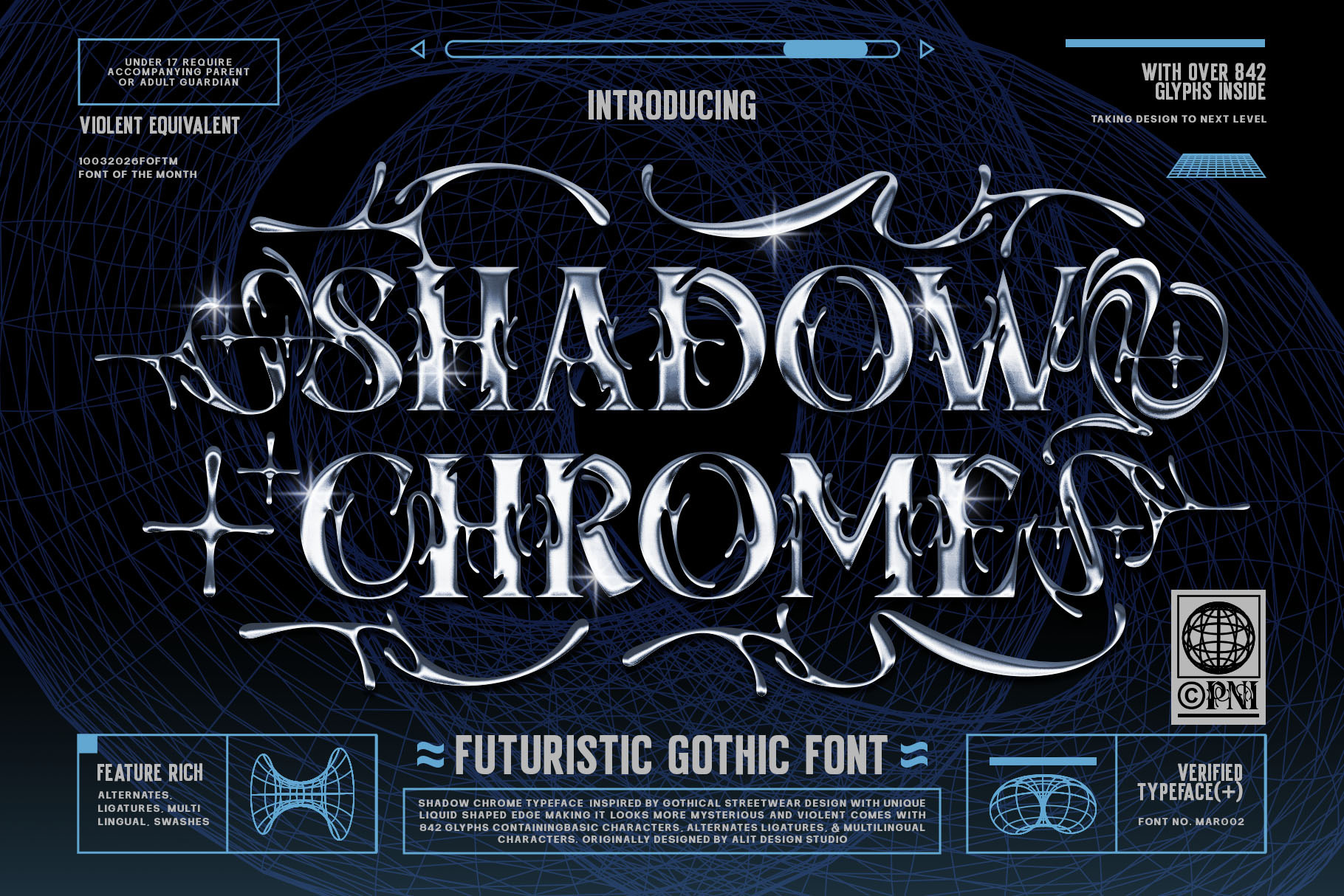
Shadow Chrome Typeface
Shadow Chrome – Futuristic Gothic Typeface
Unleash a bold fusion of tradition and tomorrow with Shadow Chrome, a high-octane "Futuristic Gothic" font designed for those who want to dominate the visual landscape. Inspired by the raw energy of gothic streetwear and modern Y2K "cyber-glitch" aesthetics, Shadow Chrome features a unique liquid-shaped edge that gives it a mysterious, sharp, and high-end metallic feel.
Every character is meticulously crafted to balance the dark elegance of blackletter with the sleek fluidity of liquid chrome. With its aggressive yet sophisticated silhouette, this typeface is the ultimate weapon for designers working on streetwear brands, music posters, futuristic gaming interfaces, and edgy editorial layouts.
The "Feature-Rich" Powerhouse
Shadow Chrome isn't just a font; it's a complete design toolkit. Boasting over 842 glyphs, it offers an insane level of customization:
Diverse Stylistic Sets: Choose from 9 different stylistic sets for both uppercase and lowercase, ranging from subtle wing swashes to complex antique shapes.
Unique Ligatures: Includes specialized uppercase and lowercase ligatures that create a seamless, custom-lettered look.
The "Liquid" Aesthetic: Perfectly captures the chrome/metallic trend currently dominating the streetwear and tech-wear industry.
Multilingual Support: Ready for global reach with comprehensive language support.
Standard Uppercase & Lowercase
Extensive Alternates & Wing Swashes
Unique Ligatures & Dingbats
Whether you're aiming for a "Violent Equivalent" streetwear vibe or a "Quantum Physic" tech aesthetic, Shadow Chrome provides the versatility and impact your project deserves.